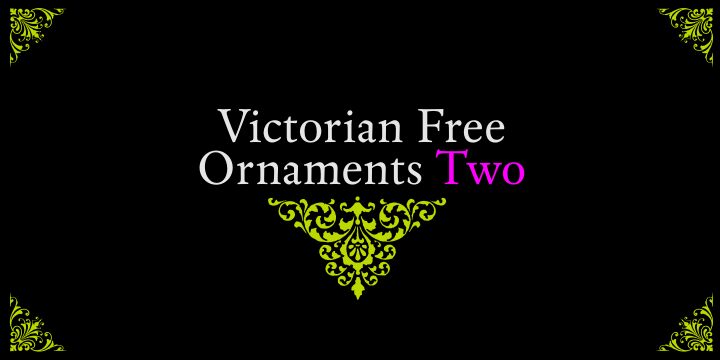
Victorian Free Ornaments Two by Paulo W of Intellecta Design is a free Victorian art dingbat font filled with elaborate flourishes, borders, cartouches, and framed motifs. The drawings favor curling leaves, mirrored scrollwork, and dense engraved detail, with both compact ornaments and long horizontal pieces.
Its nineteenth-century decorative character suits historical publishing, period event materials, and antique-themed packaging. The collection also offers useful imagery for invitations and theatrical posters. Individual symbols can become chapter dividers, ornamental frames, or emblem-like illustrations rather than functioning as ordinary lettering.